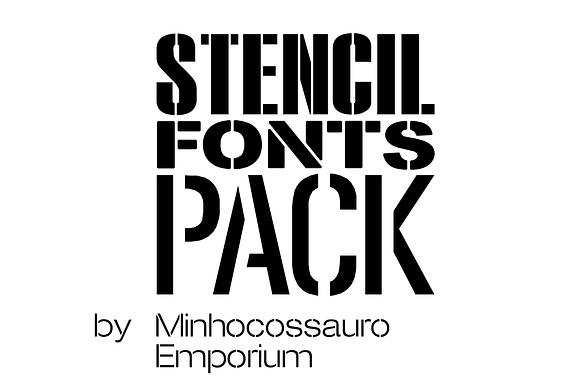
Stencil Fonts Pack
Why Stencil Fonts Pack is worth a look
Stencil Fonts Pack by Minhocossauro Emporium fits naturally into Branding, posters, packaging, typography.